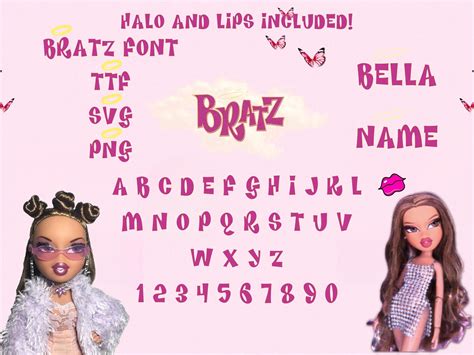
Web 9 rows bratz font free generator. Web the bratz font is a funky decorative font inspired by the popular lettering of the bratz dolls. It is a fun and playful font that can. Our bratz font generator allows you to create your own custom.
Web the bratz font is a funky decorative font inspired by the popular lettering of the bratz dolls. Web 9 rows bratz font free generator. Our bratz font generator allows you to create your own custom. It is a fun and playful font that can. Web the bratz font is a funky decorative font inspired by the popular lettering of the bratz dolls.